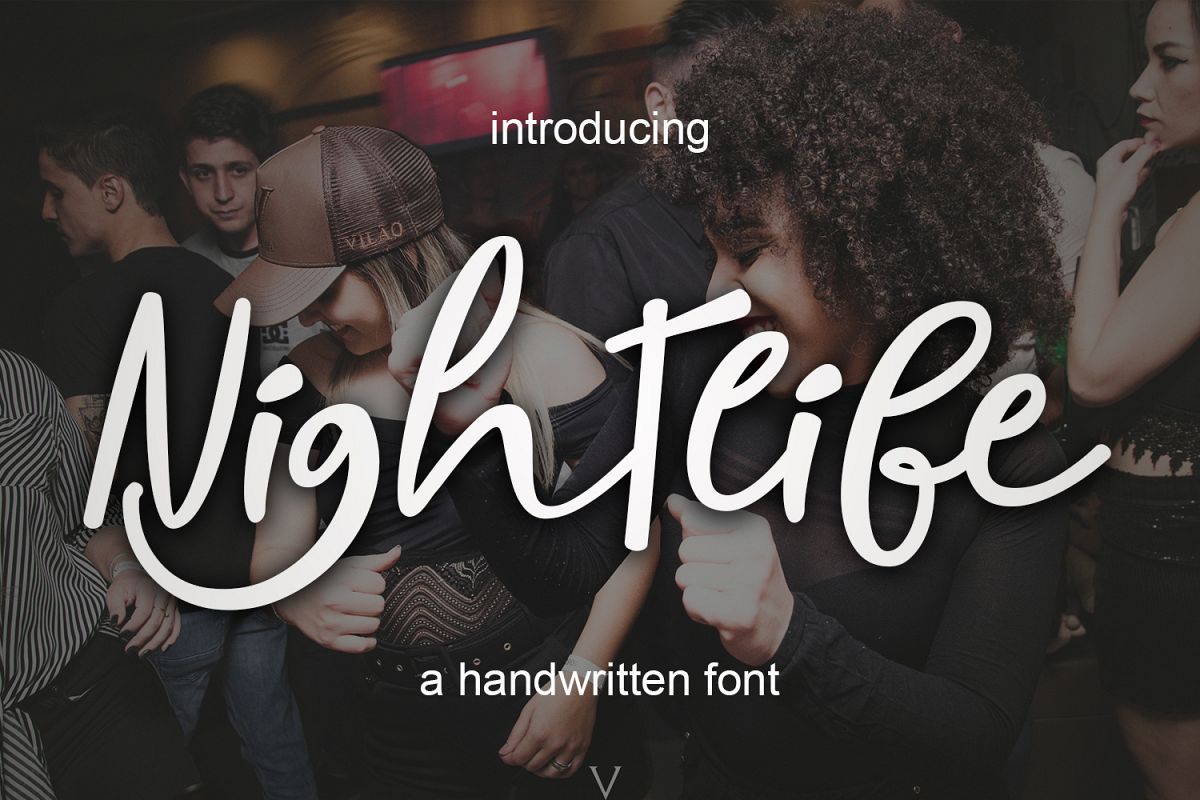
nightlife
Introducing
Nightlife Script a new fresh & modern script with a handmade calligraphy style, decorative characters So beautiful on the invitation like greeting cards, branding materials, business cards, quotes, posters, and more!!